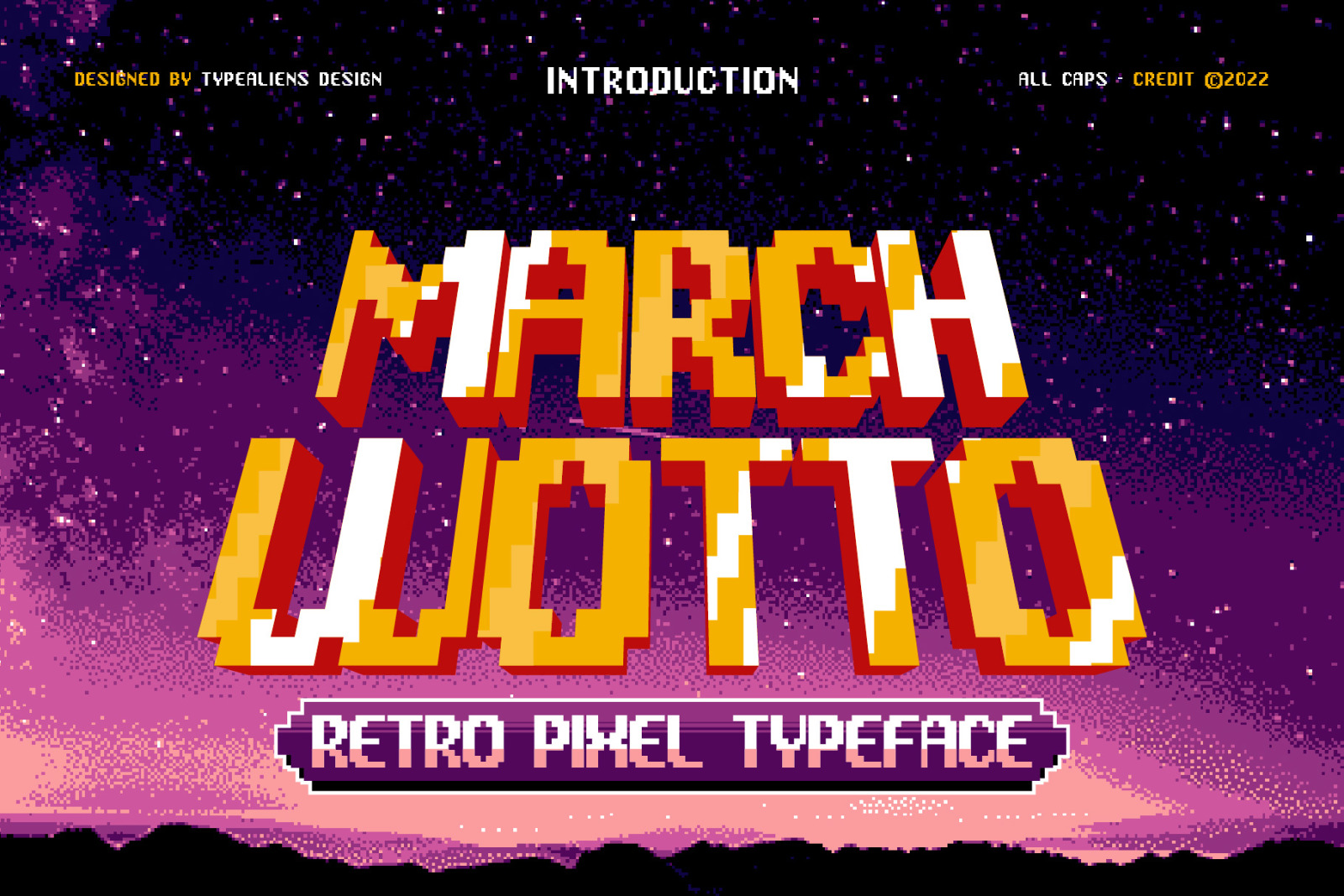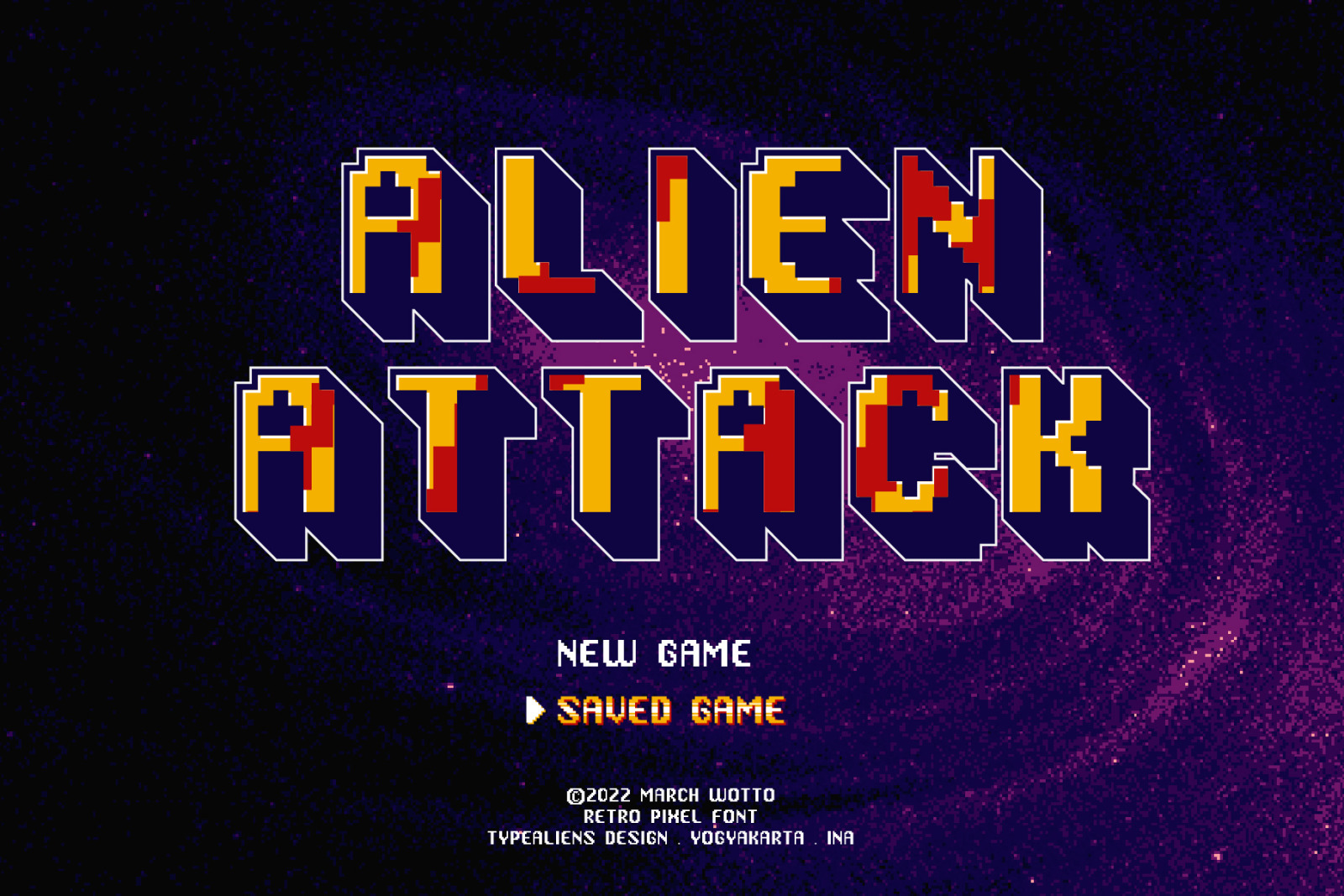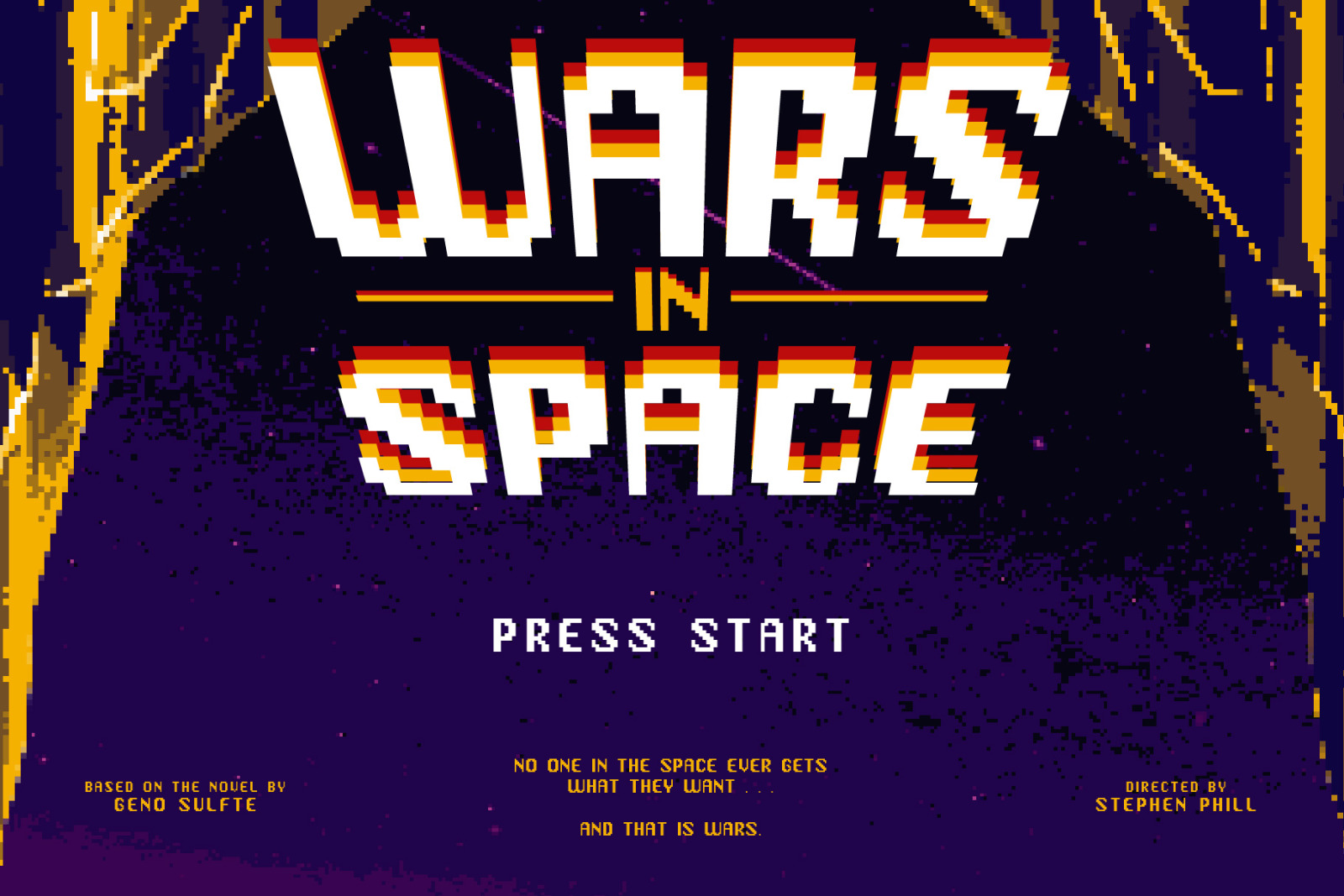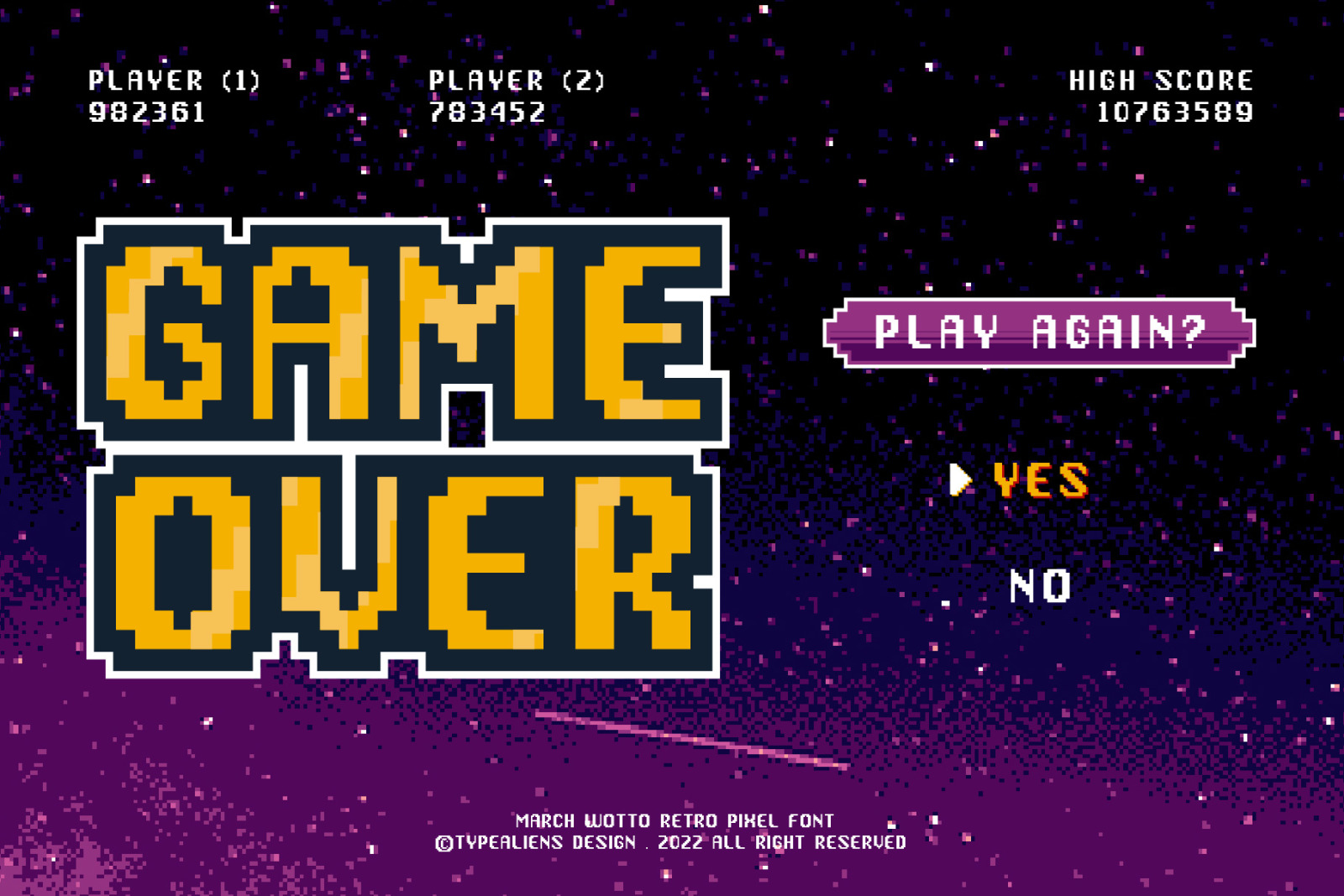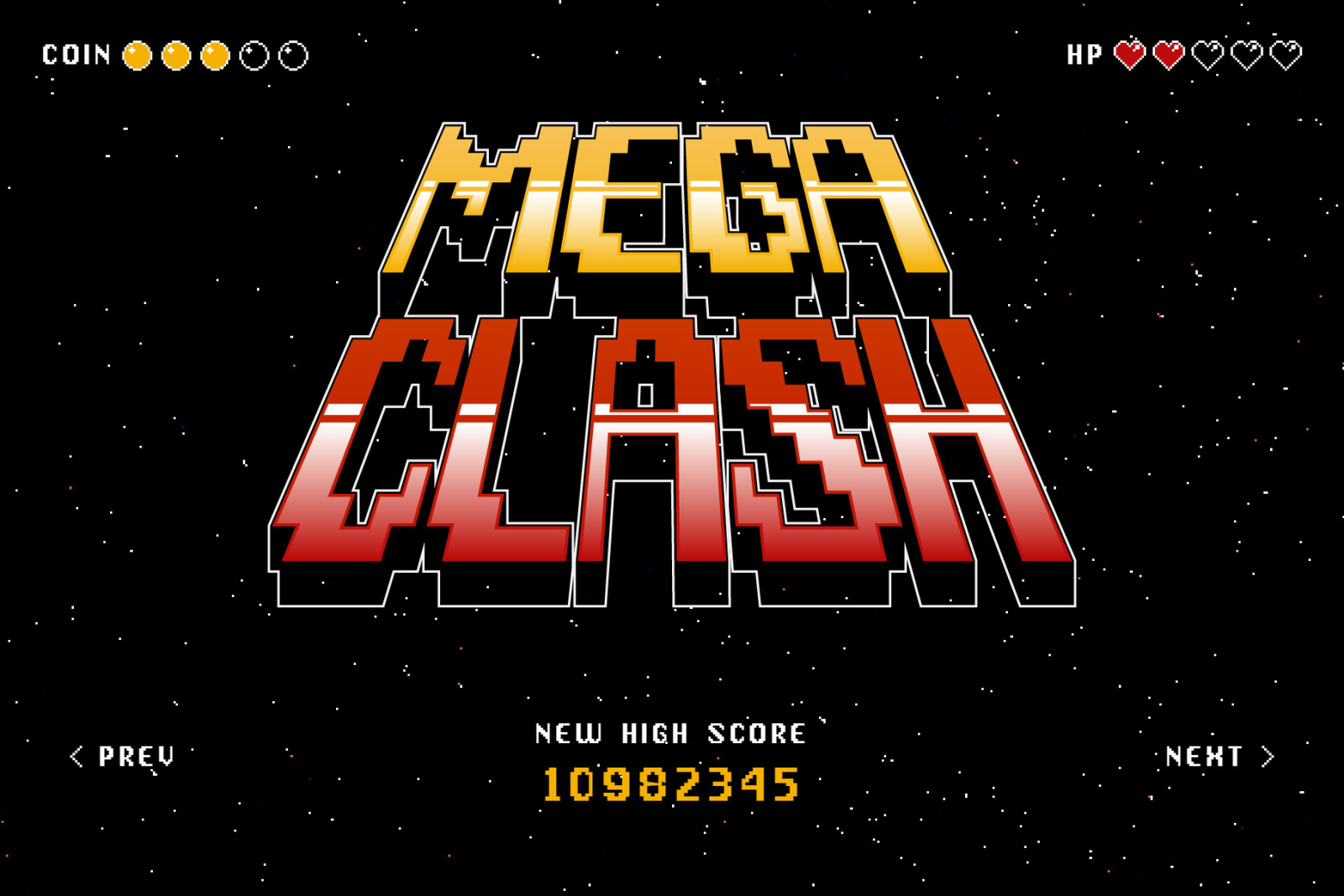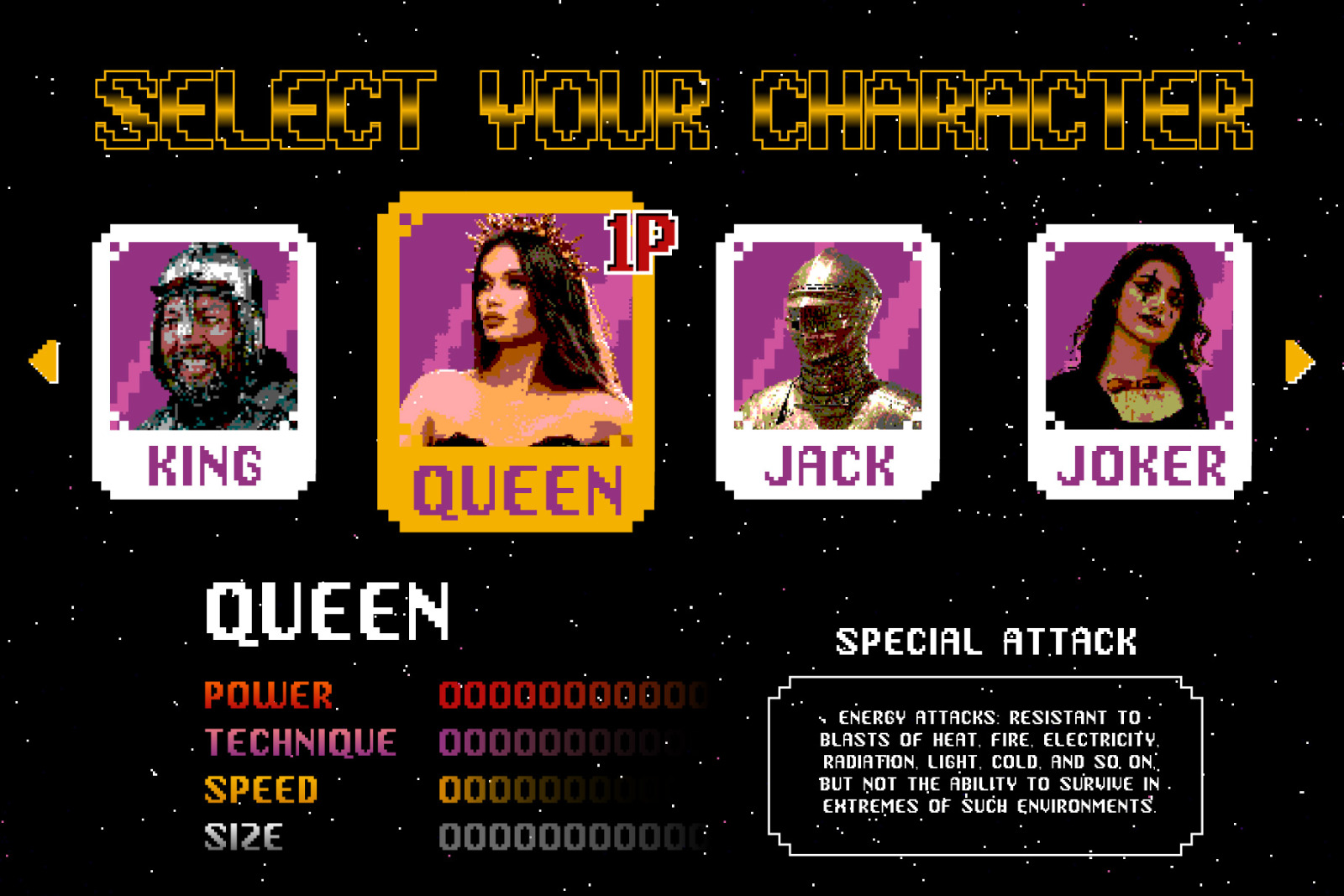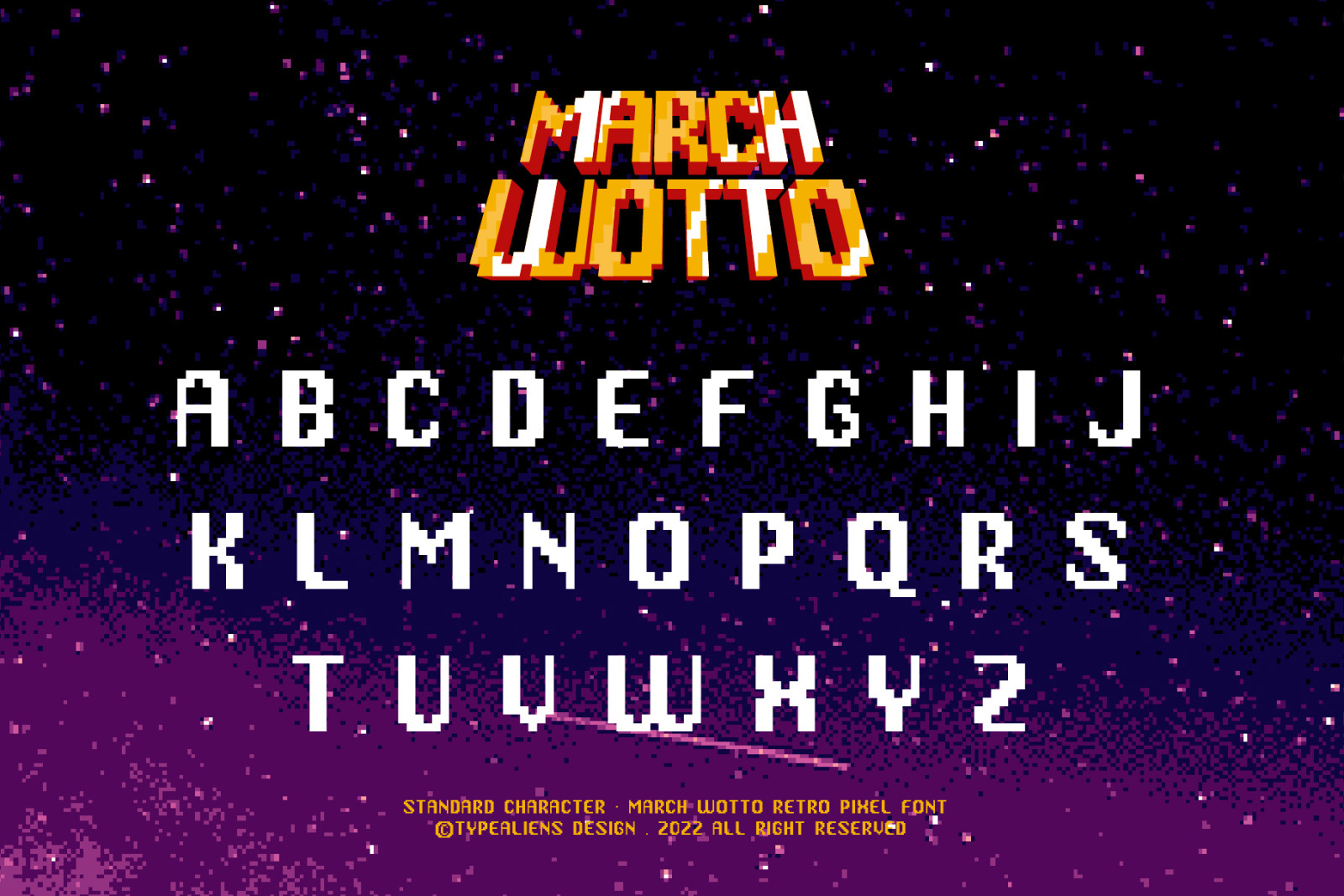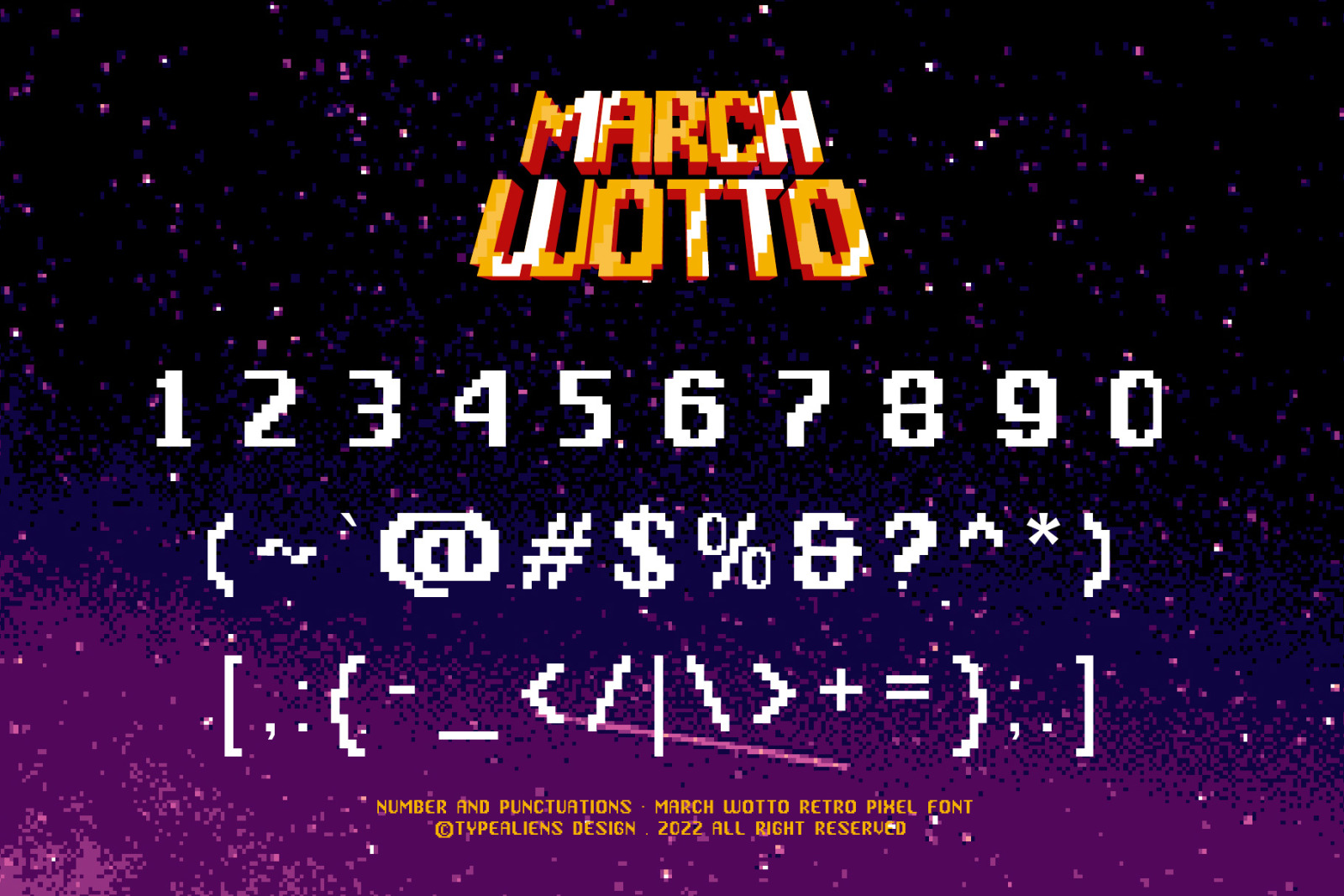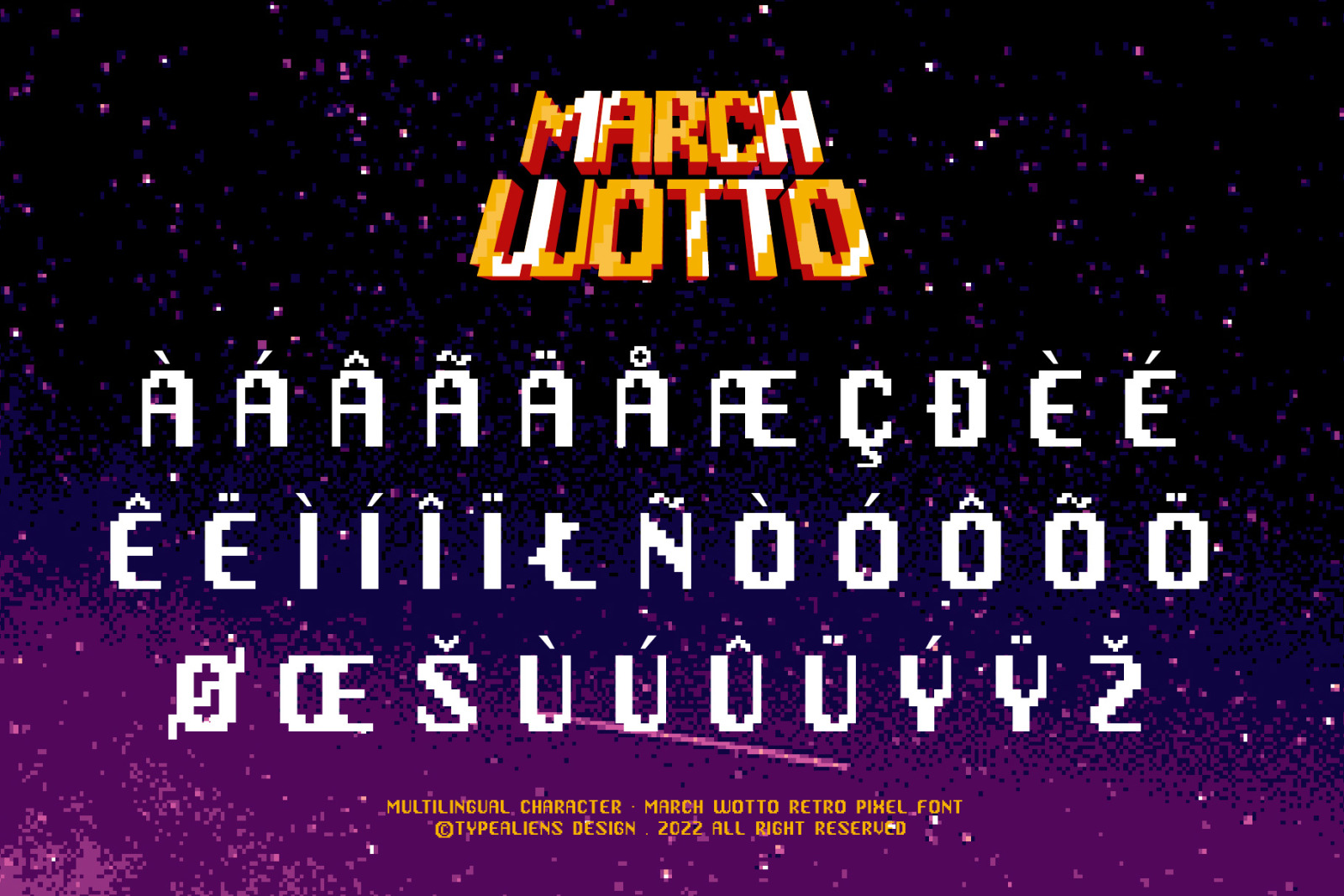
March Wotto Font
MARCH WOTTO is the usual retro pixel font for classic games, a font that is primarily a sans serif font but modified by blending with squares or pixels to form a unique display font. In addition to a font to enhance classic game designs, this font can also be used as a magazine or tabloid headline that discusses games. It can also be used for the title of a film.